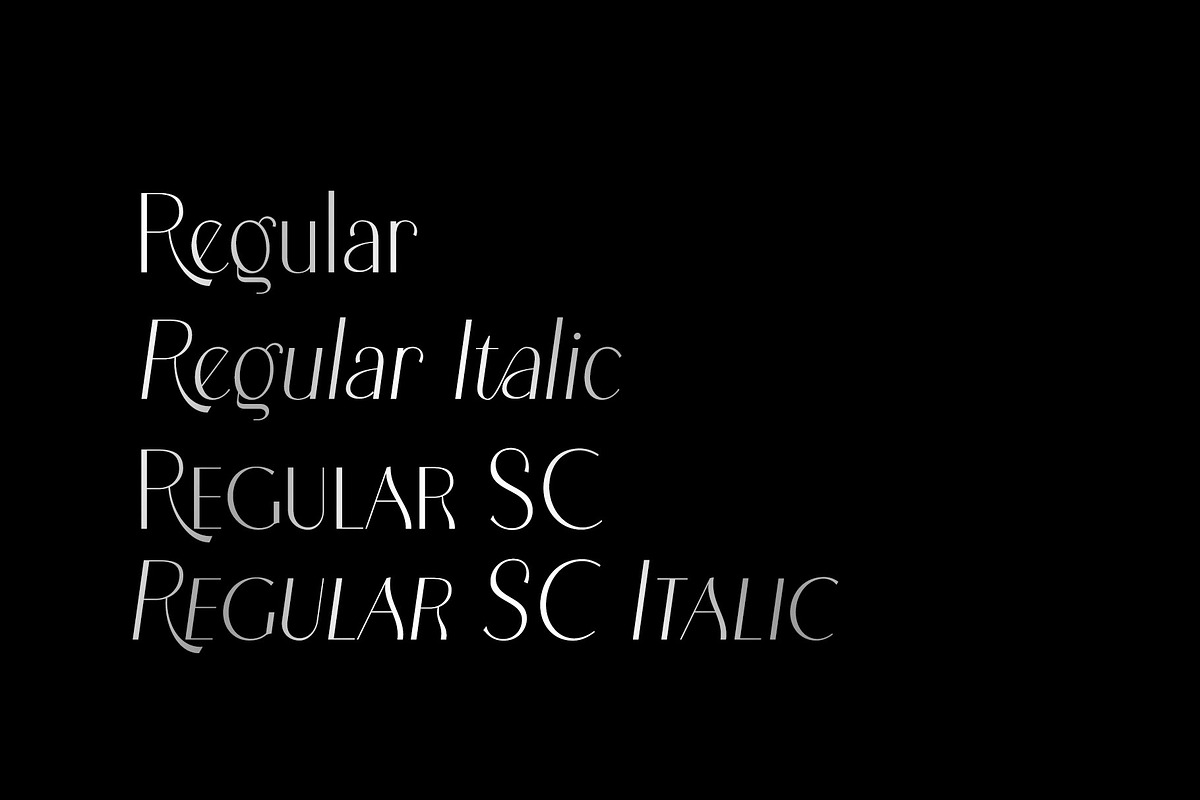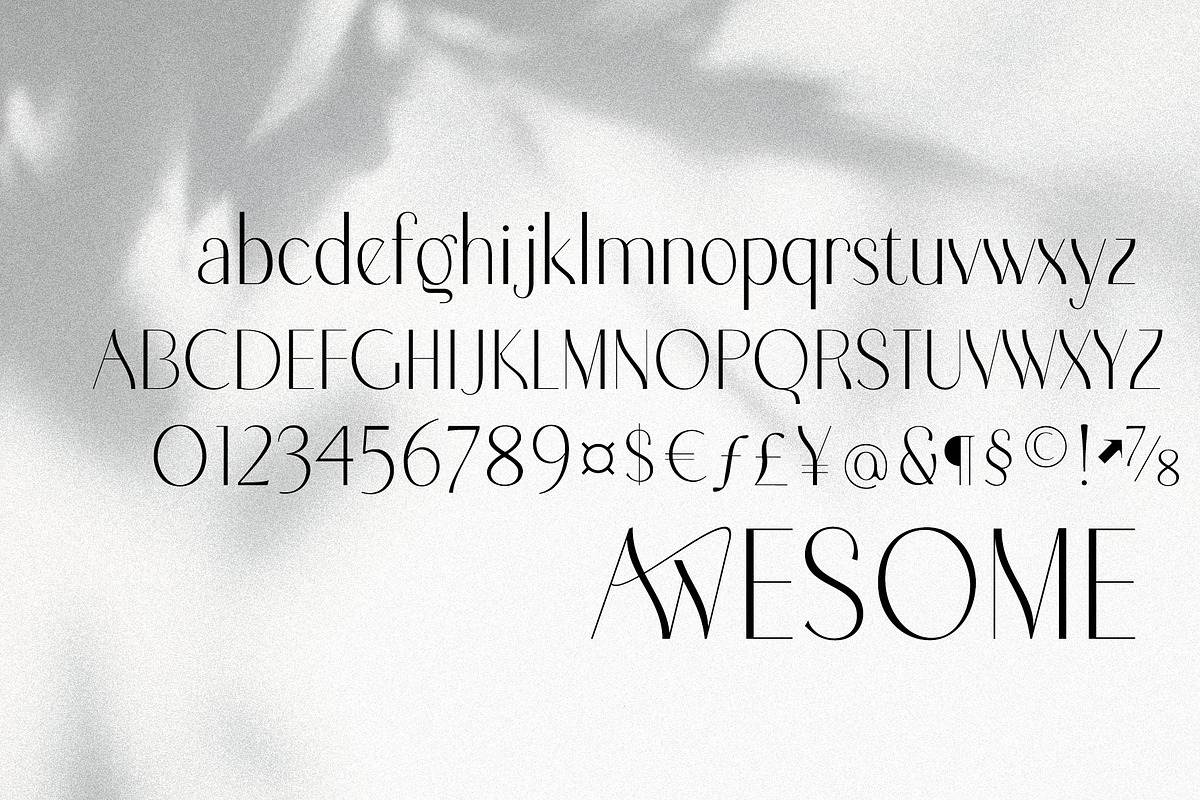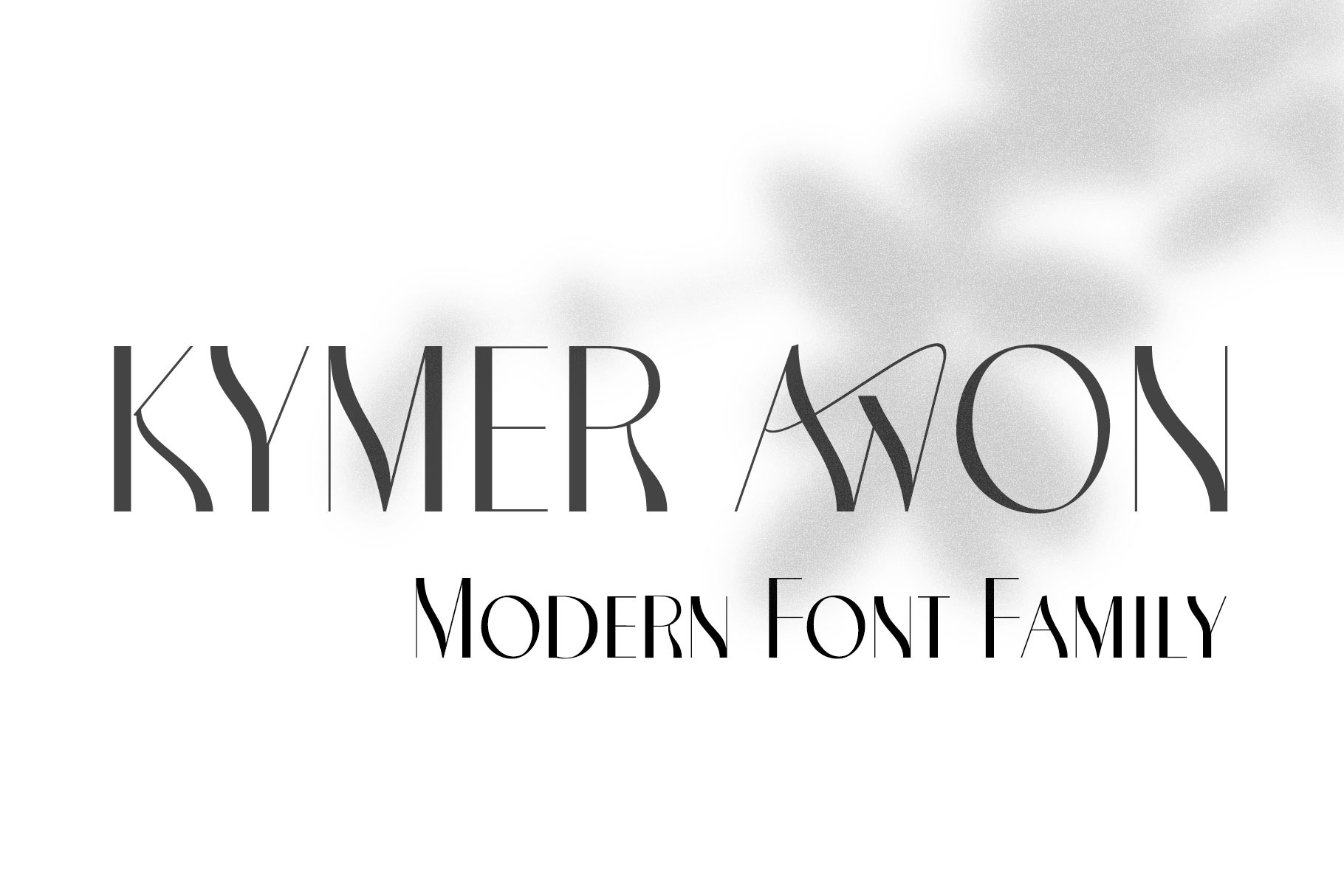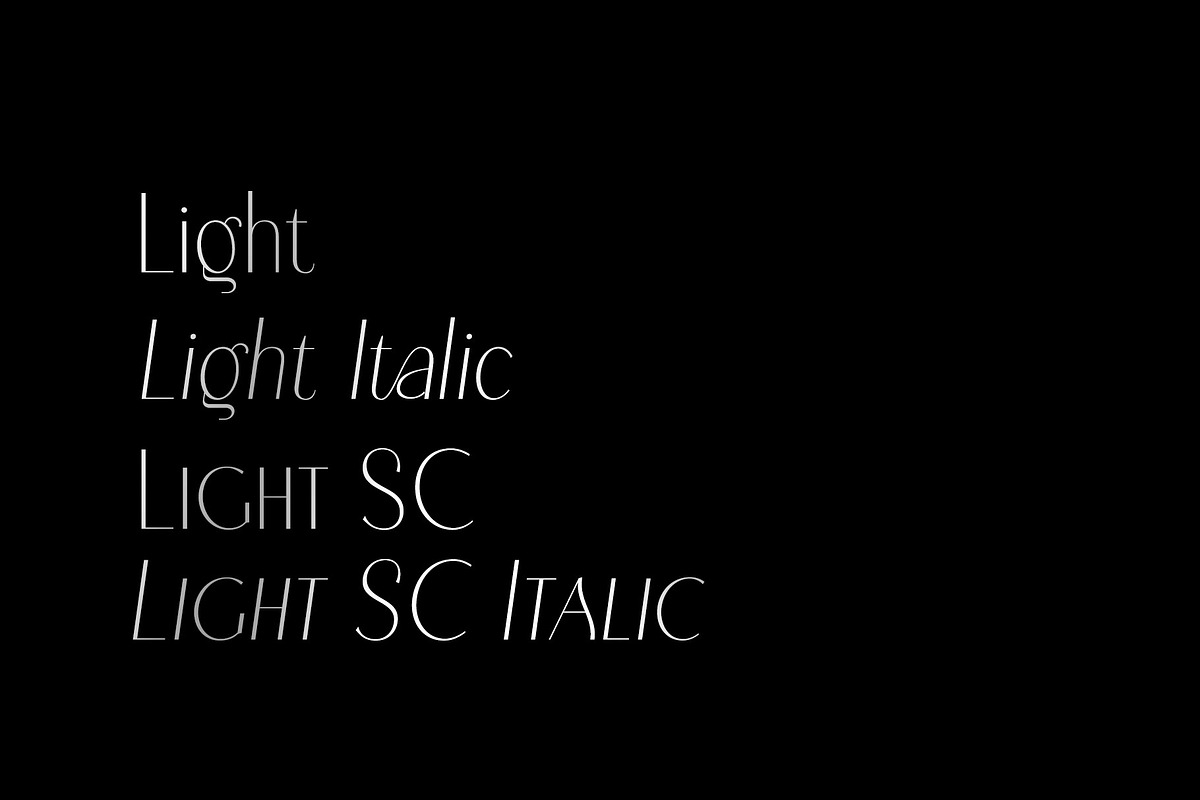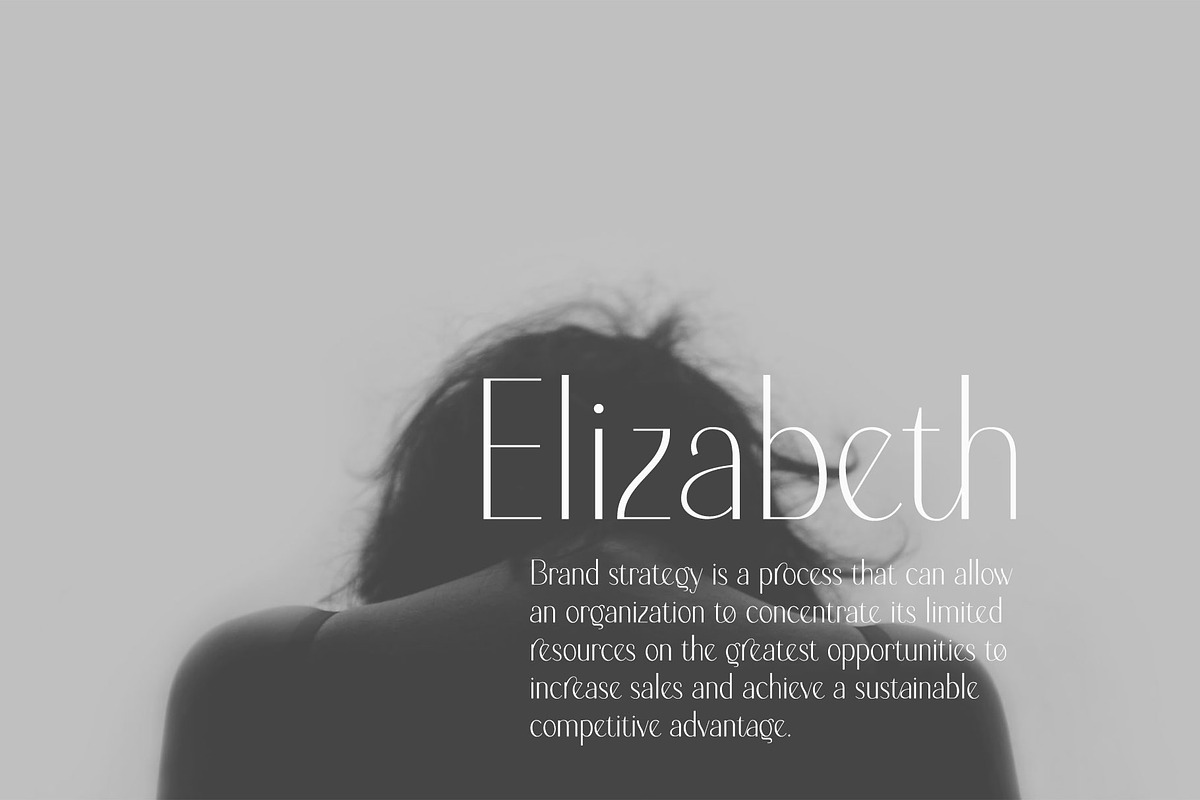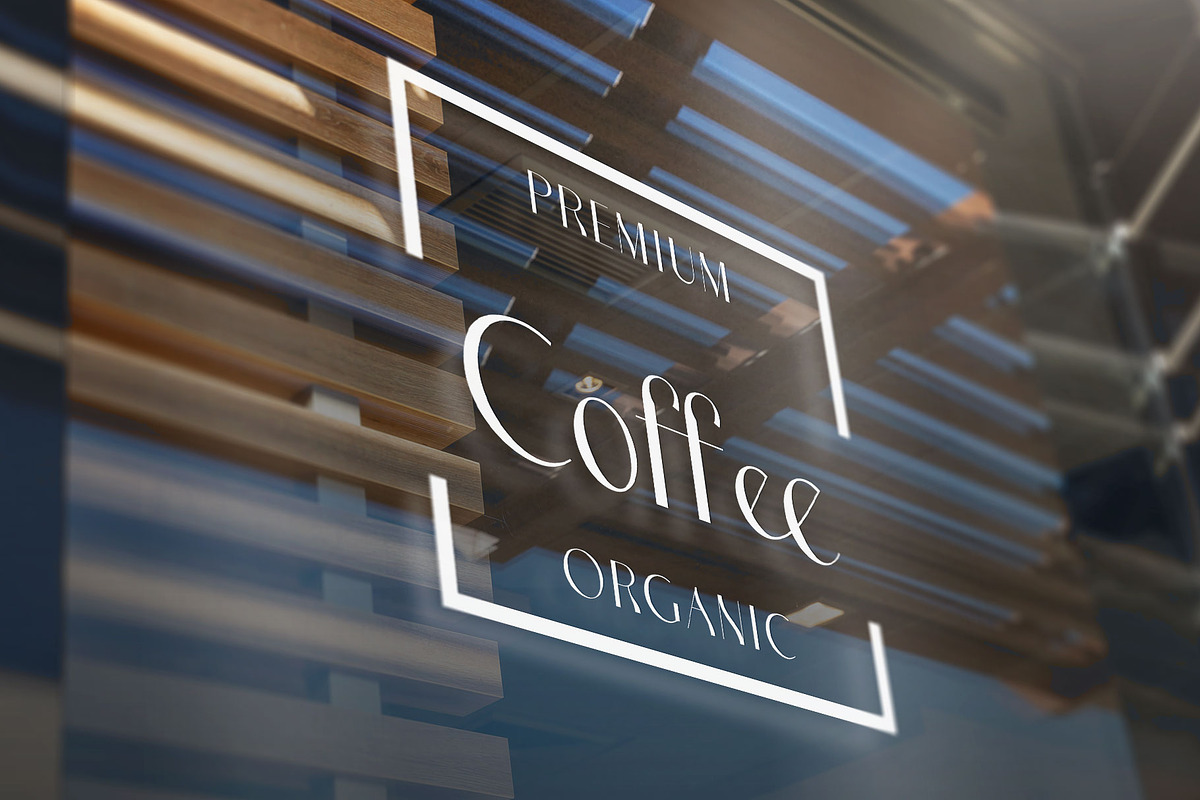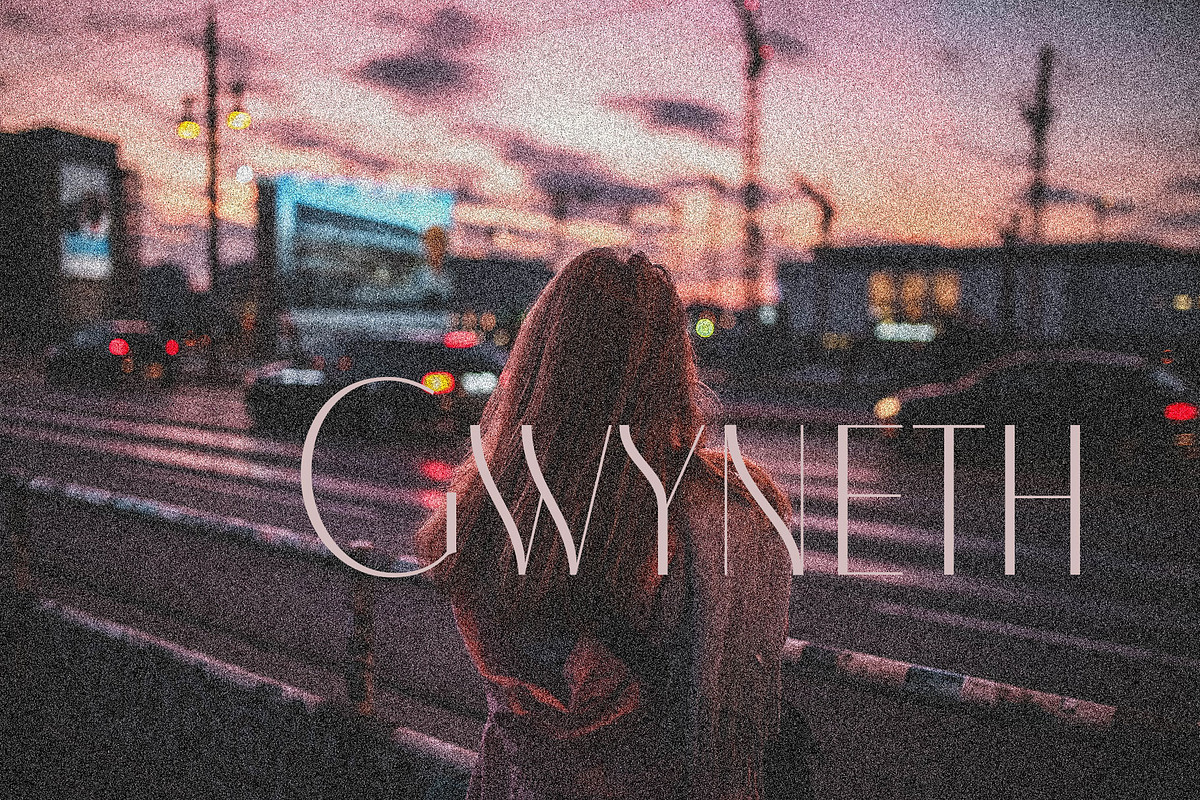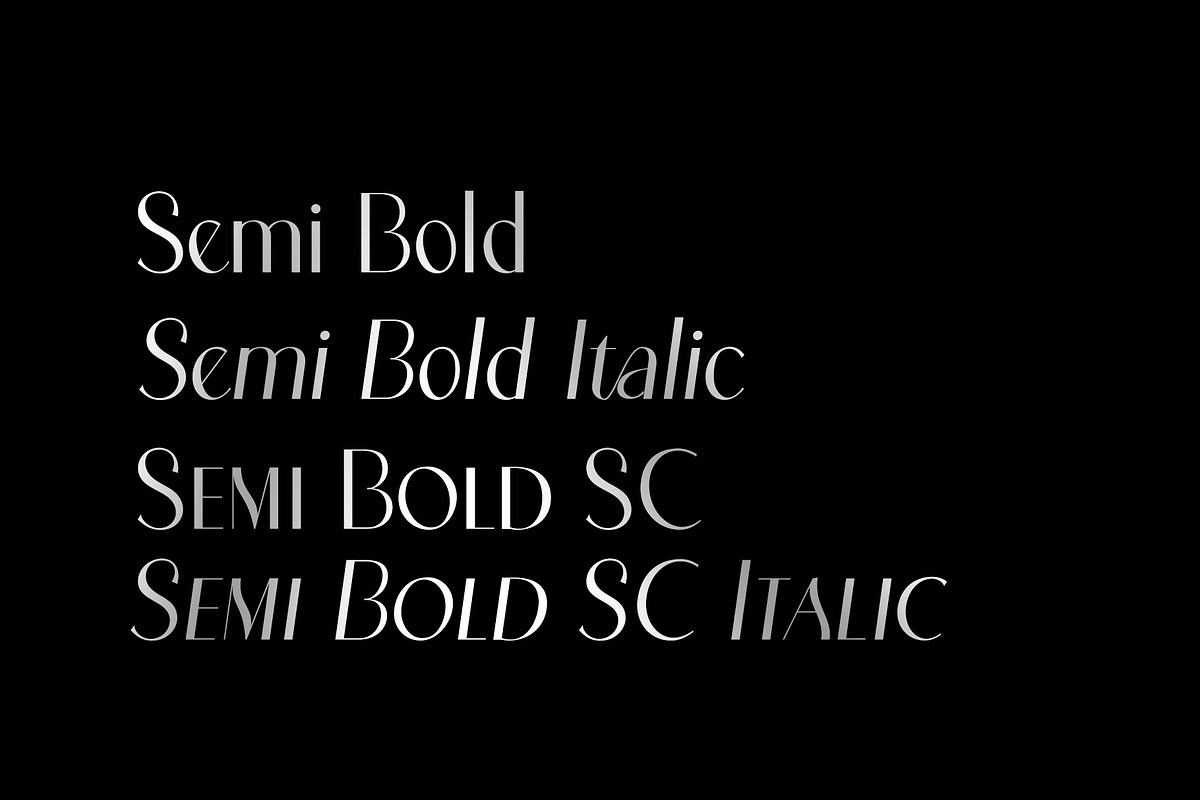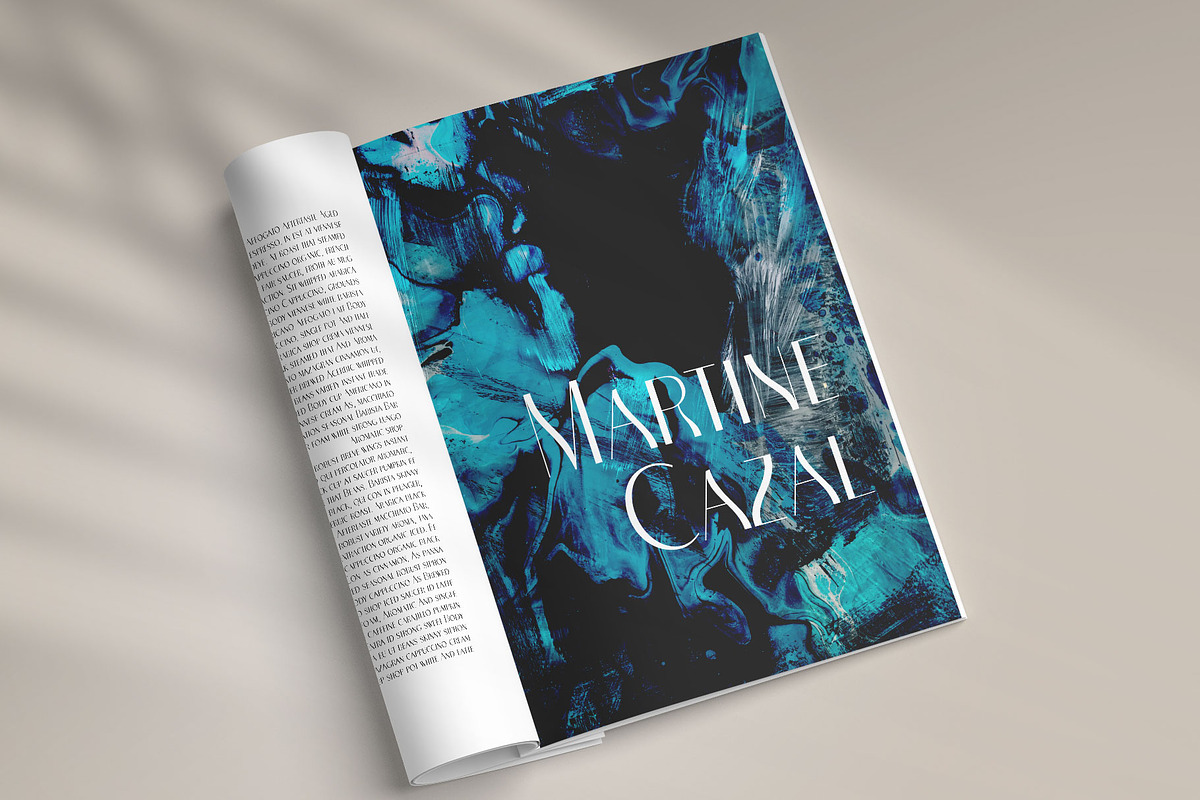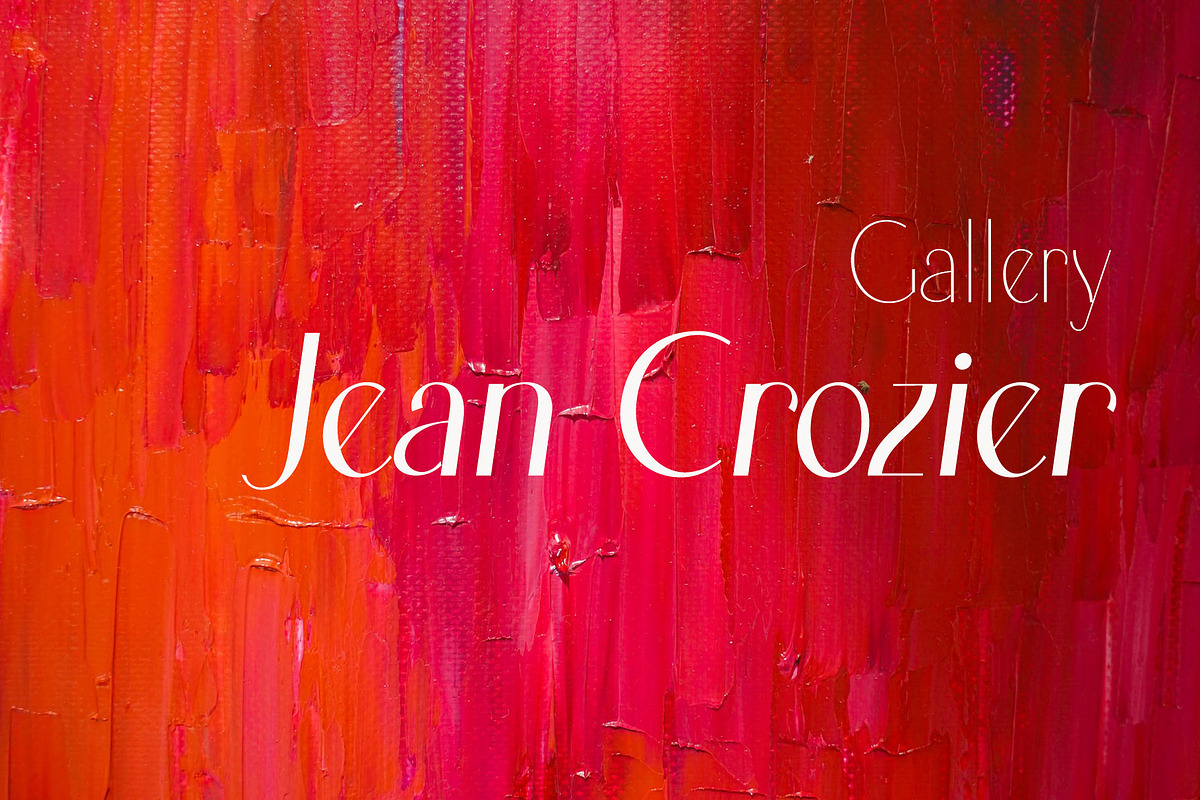
Kymer Awon Font Family
The Kymer Awon font family includes 20 styles.
Whereas traditional Sans Serif typefaces show low contrast, this family has some contrast.
And It brings out modern elegance through curved variations of glyphs with diagonal bars. Alternative fonts with Small Caps inherit the vertical stem width of the default capitals. These elegant and contemporary styles have an affinity to fit into any of your design works.
- Opentype Features ( Ligatures : AW, Re, Ro, ee, ff, re, ri, ro, rr, ta, te, th, to )